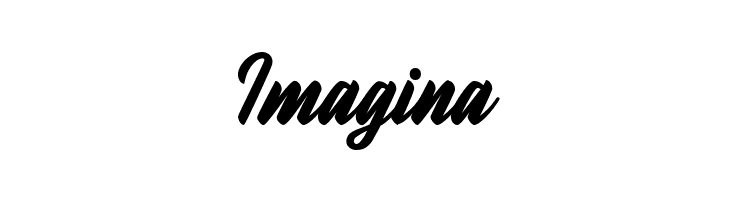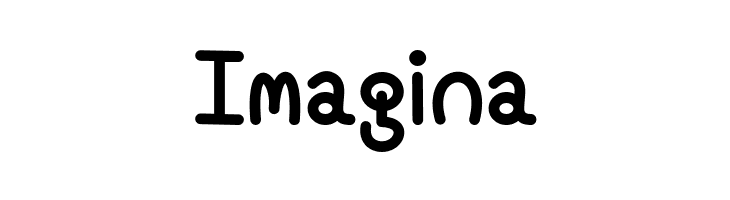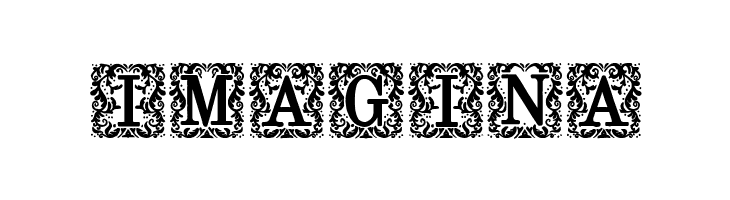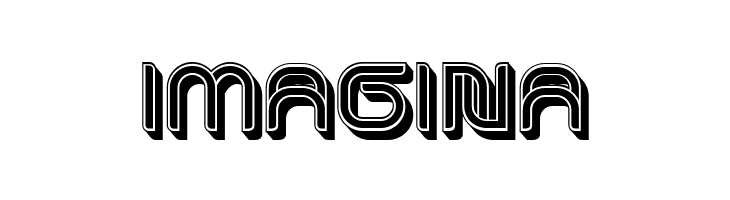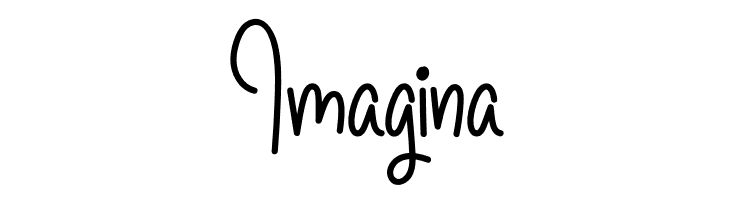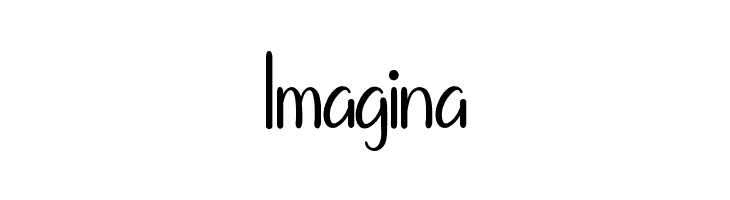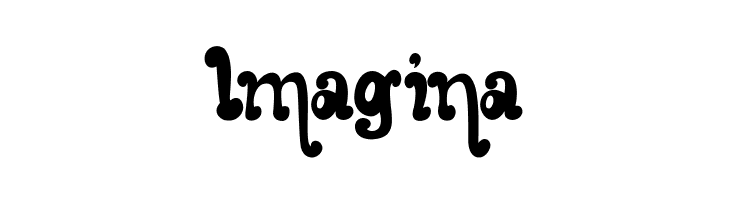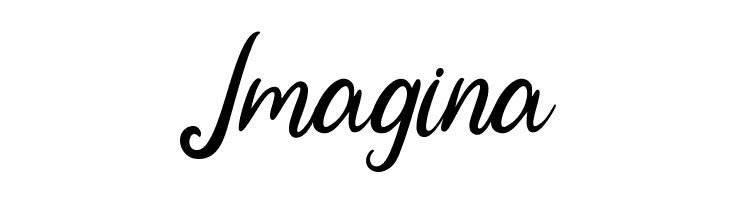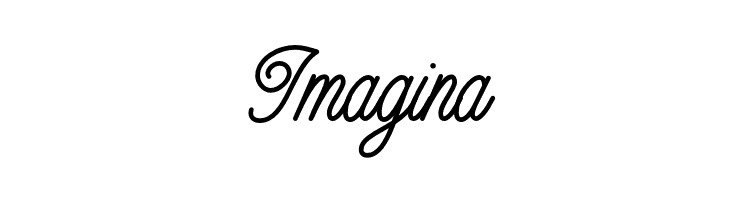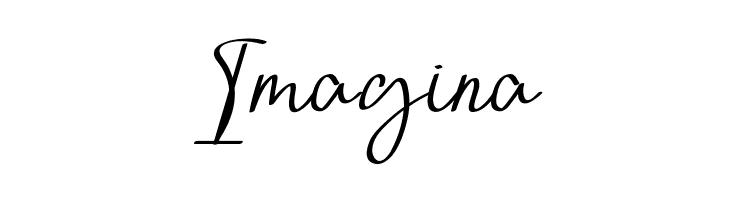
A bold, decorative font with a unique slashed pattern for dynamic visual impact.
A modern, bold sans-serif font with geometric influences.
A bold, dynamic script font with flowing, cursive letterforms.
An elegant script font with flowing, interconnected letters and intricate swirls.
An elegant and decorative script font with flowing, cursive letterforms.
A bold, playful font with a hand-drawn, outlined style.
A playful, handwritten font with rounded edges and a casual style.
A bold, expressive handwritten font with dynamic strokes and playful character.
A bold, rugged font with distressed edges and a hand-crafted appearance.
A fluid and elegant handwritten cursive font.
An elegant script font with fluid, graceful strokes and artistic flair.
A fluid and elegant script font with graceful curves and a handwritten feel.
A bold, decorative font with a vintage, textured style.
An ornate, decorative font with intricate borders around bold, capitalized characters.
A bold, distressed font with an eroded, vintage texture.
A bold, rounded, and outlined font with a playful and modern style.
A tall, narrow font with consistent stroke width and a modern, whimsical style.
A modern serif font with fine lines and elegant curves.
A bold, playful font with a unique shadow effect and rounded characters.
A bold, decorative font with a Western, woodcut style.
A playful and elegant script font with flowing, cursive letters.
A modern stencil font with geometric lines and a minimalist design.
A playful, hand-drawn font with tall, narrow letters and a whimsical style.
A playful, artistic inline font with a whimsical and creative style.
A playful, bold font with rounded, exaggerated curves and a whimsical style.
A fine arts-themed decorative dingbat font with detailed art-related icons.
A bold, cursive font with fluid, interconnected letters and elegant flourishes.
A bold, cursive font with smooth, flowing lines and elegant flourishes.
A bold, decorative font with intricate patterns and a vintage flair.
A bold, geometric font with a futuristic and decorative style.
A playful, handwritten script font with smooth, connected letters.
A bold, modern sans-serif font with clean lines and uniform stroke weight.
A modern, light sans-serif font with low contrast and excellent readability.
A bold, modern sans-serif font with a clean and professional look.